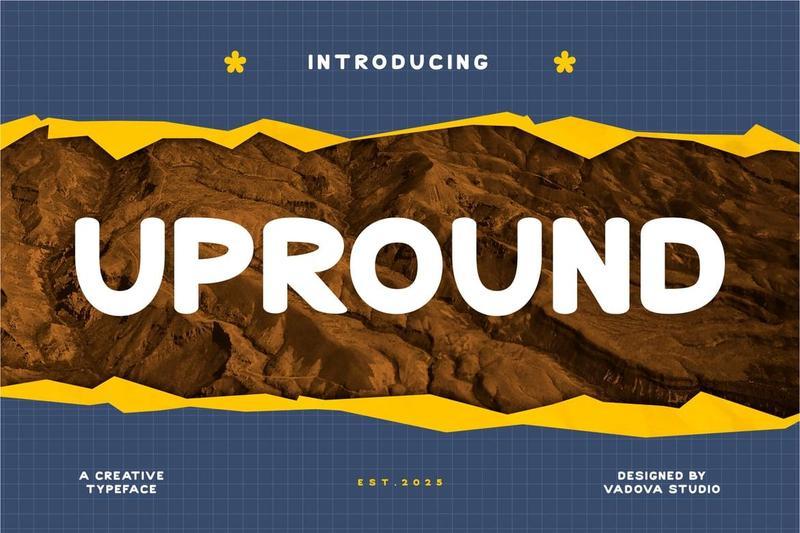
**Upround** is a playful rounded display font with bold geometric construction, soft curves, and retro-futuristic character styling. Featuring uppercase, lowercase, numerals, punctuation. This typeface is built for eye-catching headlines, creative branding, and fun visual identities. Its smooth bubble-inspired forms combine modern boldness with cheerful personality, making it ideal for digital and print applications. Includes font files only; preview mockups and imagery are not included.
Relevance and Use Cases is perfect for playful branding, kids products, creative packaging, retro-futuristic posters, app interfaces, social media graphics, gaming visuals, toy branding, editorial headlines, and bold marketing materials needing friendly modern typography. Suitable for toy branding, children products, creative startups, gaming projects, mobile apps, social content, poster design, product packaging, playful logos, and bold editorial layouts that need expressive rounded typography.
**Main Features**
* Uppercase & Lowercase characters
* Numeral & Punctuations